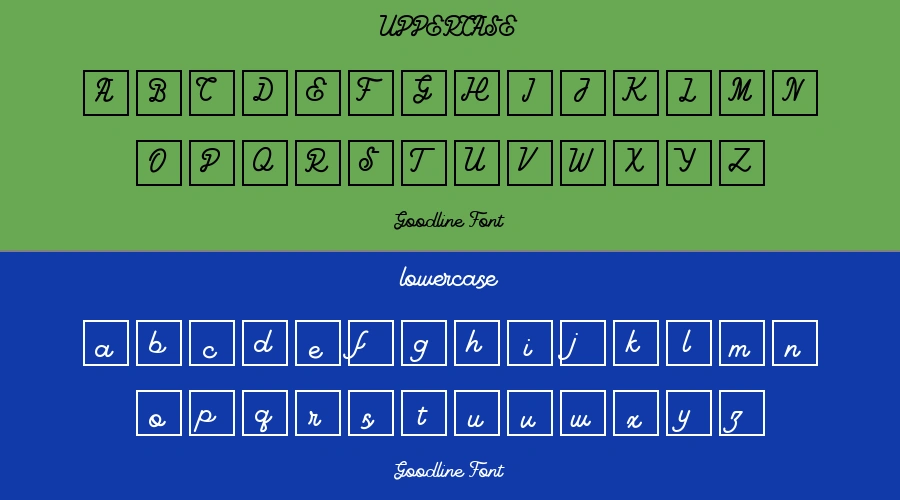
About Goodline Font
Designed with precision, Goodline Font merges elegant proportions with versatility in every character. This versatility makes it particularly effective for brand launches, where elegance and market relevance directly impact communication quality. Each letterform demonstrates meticulous craftsmanship.
Technical excellence shines through elements like hairline details and titling alternates, enhancing typographic versatility. In instruction steps settings, Goodline Font proves its worth through superior multi-language support. The thoughtful execution of descender depth and subtle details ensures professional results.